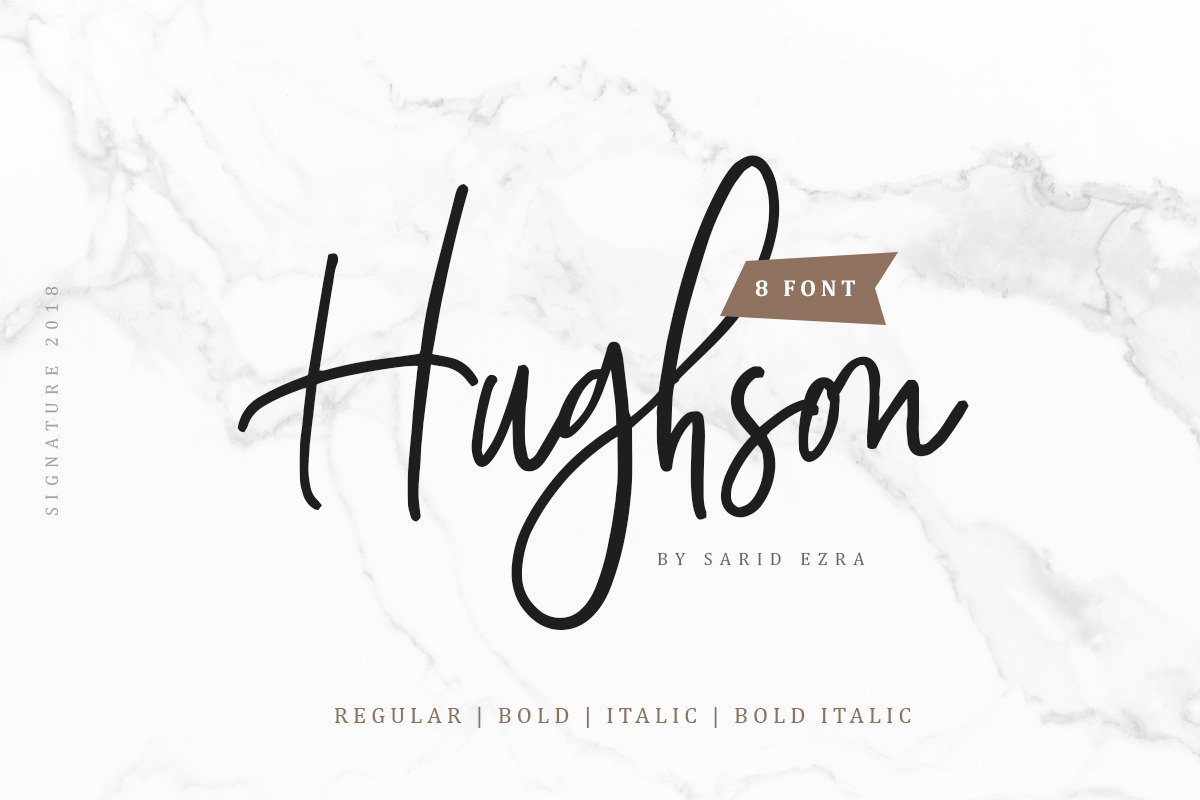
Hughson Script (8 Fonts)
Introducing, Hughson Script Family, the newest signature handmade!
Hughson Script Family contain 8 FONTS including alternates, Ligatures, and also Underline. Hughson is a signature font that you can use to make a logo for branding, beautiful fashion design, suitable for wedding invitation, or handwritten quote. Also already PUA Encoded.
Foreign Languages Support: ÀÁÂÃÄÅÇÈÉÊËÌÍÎÏÐÑÒÓÔÕÖØÙÚÛÜÝßàáâãäåæçèéêëìíîïðñòóôõöøùúûüýÿ